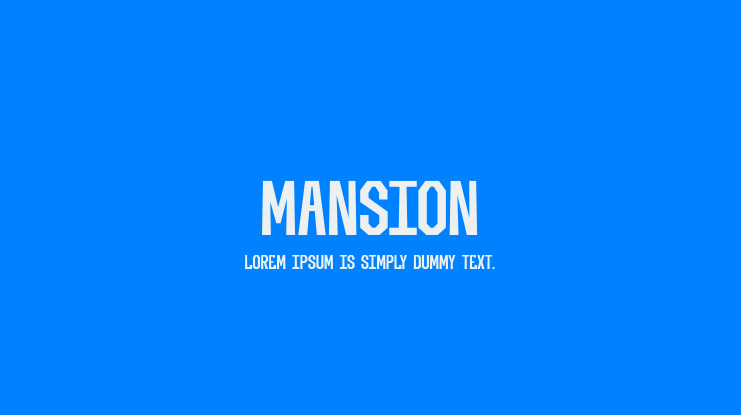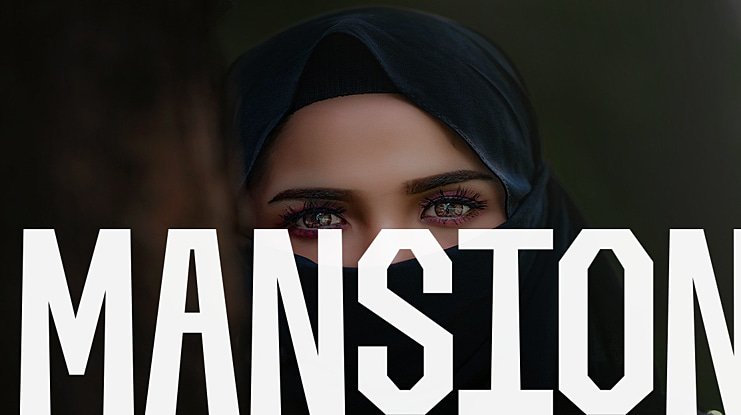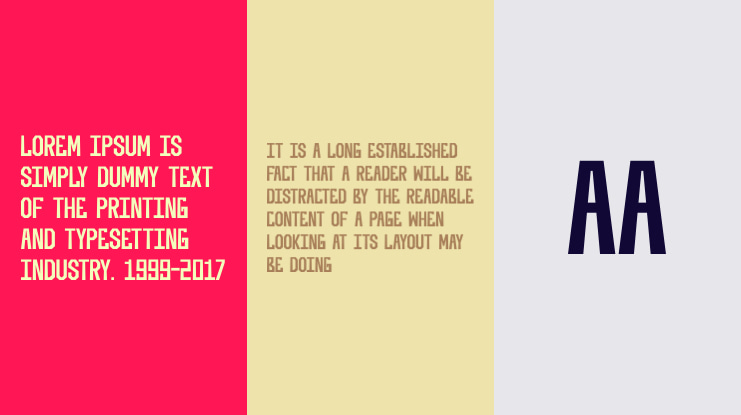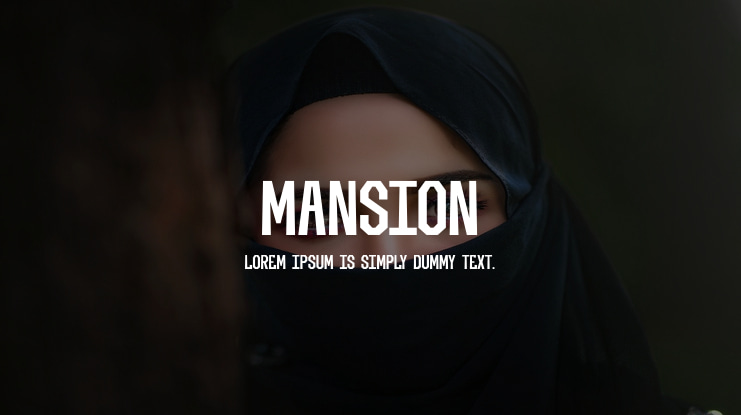
Mansion Font
Hamber Perdiansyah
MANSION is a cool, bold sans serif font with ligature and alternates. And very suitable for book covers, brand logos, posters, movie titles and much more!
This font is ALL CAPS character and PUA encoded which means you can access all of the glyphs ease!